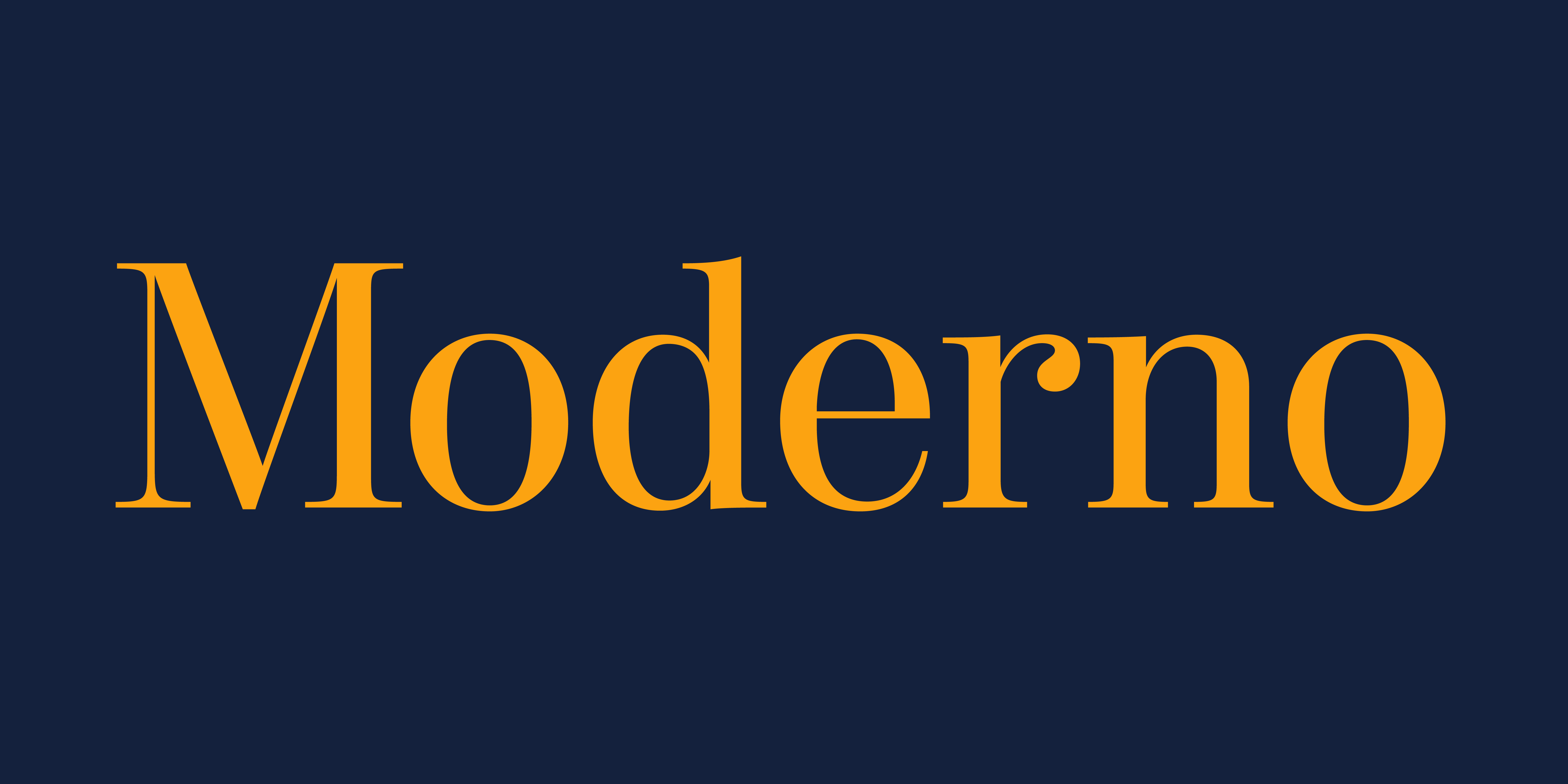
Moderno FB Font is ideal for contemporary brand identities, modern advertising campaigns, sleek product packaging, progressive corporate communications, innovative website designs, cutting-edge marketing materials, urban lifestyle brands, sophisticated editorial layouts, tech industry presentations, and forward-thinking business communications. This refined modern serif brings contemporary elegance and sophisticated functionality to progressive design applications.
What makes Moderno FB Font so exciting is its masterful fusion of classical serif traditions with contemporary design sensibilities that creates a perfect bridge between timeless elegance and modern innovation. The font features streamlined letterforms with refined serif construction and optimized proportions that ensure exceptional readability while projecting the sophisticated confidence that modern businesses demand. Its distinctive characteristics include balanced contrast ratios, precise geometric relationships, and contemporary character spacing that reflect current design trends while maintaining the authority and credibility that serif typography provides. The font's modern interpretation of classical principles makes Moderno FB Font the ideal choice for brands seeking to communicate both heritage and innovation simultaneously.
The Moderno FB Font family includes comprehensive weights and styles: Light, Regular, Medium, Bold, and Black variations, each available in Roman and Italic cuts. The extensive character set encompasses complete Latin alphabet support with contemporary symbols, modern numerals, sophisticated punctuation marks, mathematical operators, and broad international language coverage including Central European characters. Professional features include contextual alternates that enhance modern appearance, optical adjustments for different applications, expert spacing for both display and text use, and refined character construction that ensures consistent performance across all contemporary media platforms and professional printing requirements.
Whether you're creating modern brand identities, contemporary publications, or sophisticated business communications, Moderno FB Font Free Download provides the elegant typography that positions brands at the forefront of contemporary design while maintaining classical credibility and professional authority. Its exceptional versatility makes it suitable for both large-scale branding applications and detailed editorial work, while its modern character ensures relevance in today's rapidly evolving design landscape. The font's combination of classical foundation and contemporary innovation makes it invaluable for progressive companies, design-conscious brands, and any organization seeking typography that communicates sophistication, innovation, and the perfect balance between tradition and modernity that defines success in today's competitive business environment.